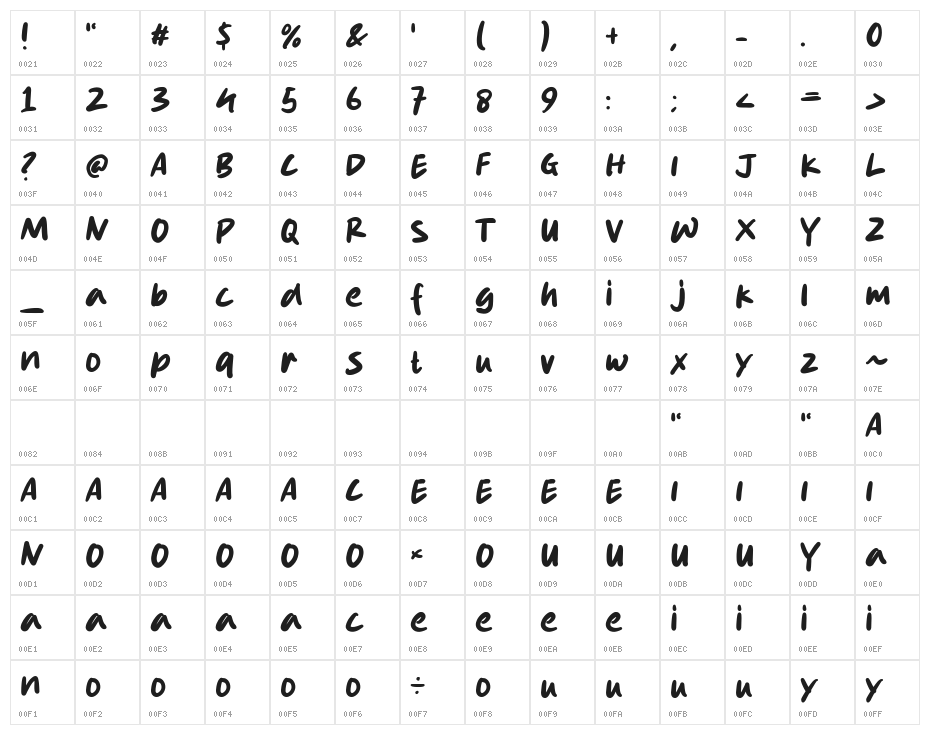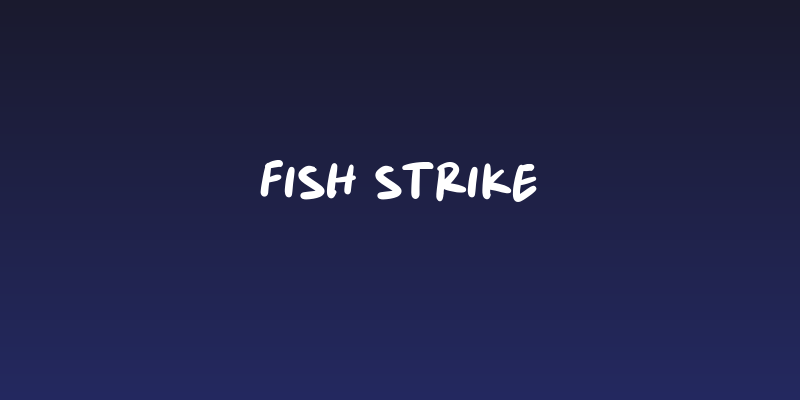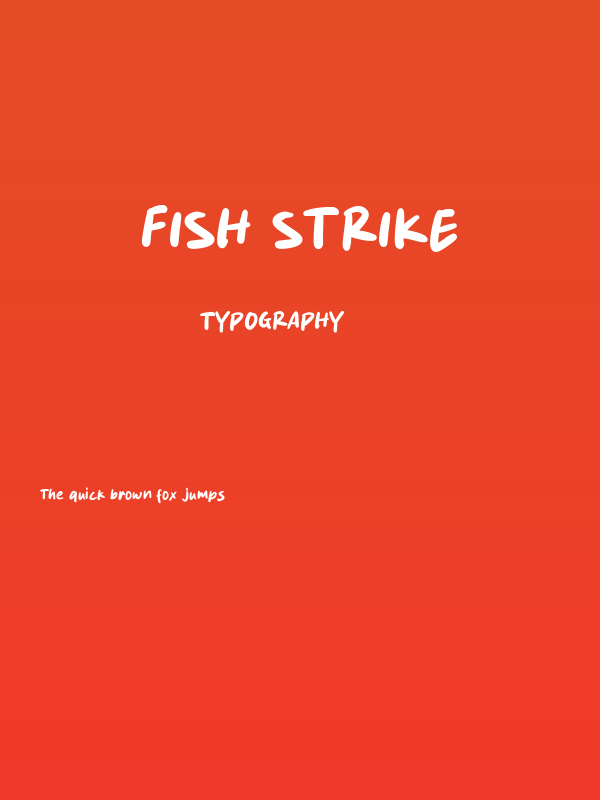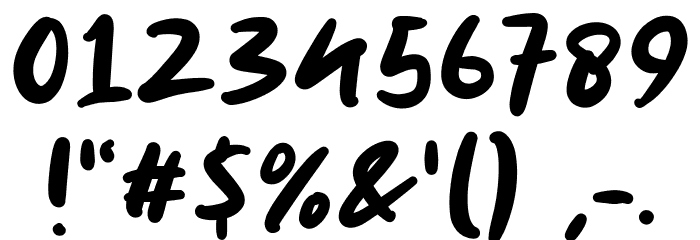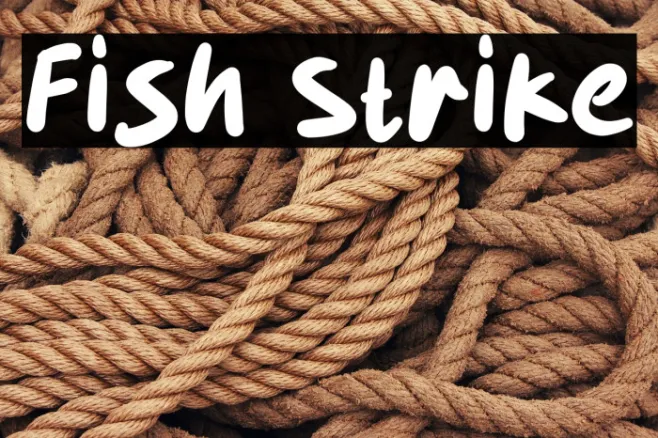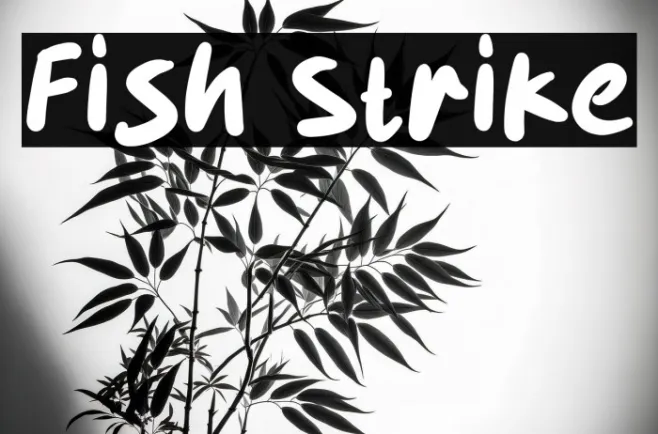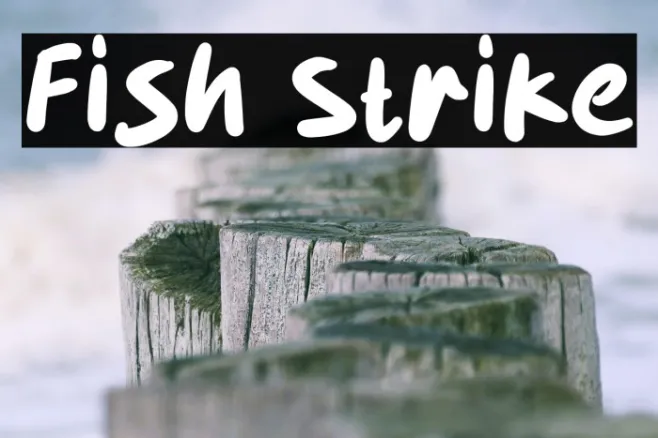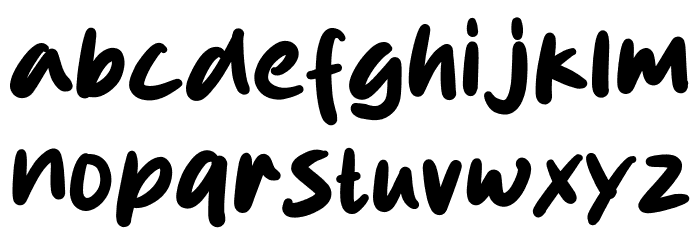
Fish Strike Font
Fish Strike Description
This font features a bold, handwritten style with a playful and energetic appearance. The letters are slightly slanted, giving a dynamic and informal feel. The strokes are thick and consistent, providing a strong visual impact. The characters are rounded and smooth, adding a friendly and approachable vibe. The spacing between characters is relatively tight, which enhances the cohesive look of the text. This font is versatile and can be used to convey a sense of fun and creativity, making it ideal for projects that require a personal touch.
| Proposed Projects | Ideal for greeting cards, posters, social media graphics, and branding materials that require a personal and creative touch. |